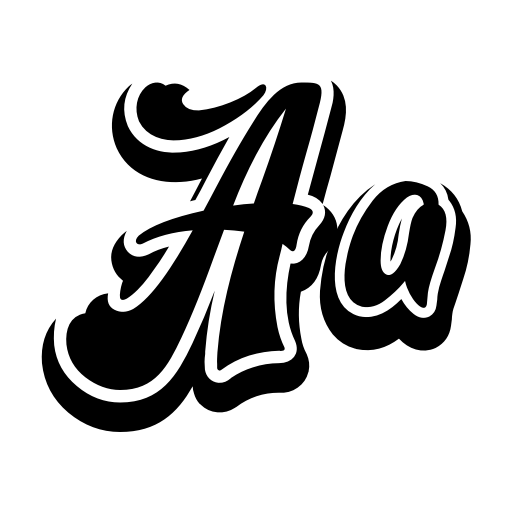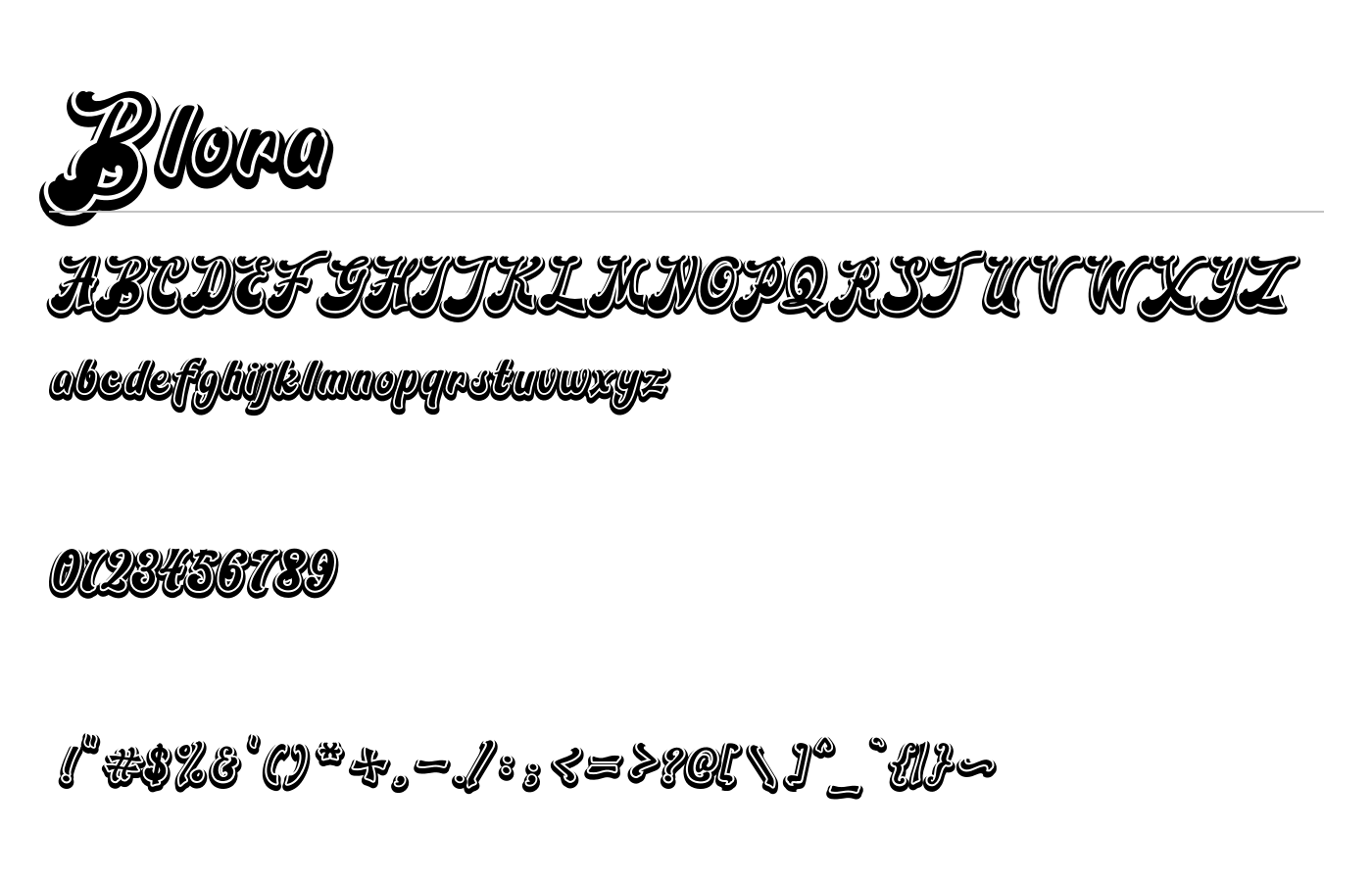
Blora is a bold and playful script font with a thick, shadowed outline that gives it a dynamic, three-dimensional feel. Its rounded, flowing letterforms with high contrast between thick and thin strokes make it perfect for eye-catching headlines, logos, and branding that want to convey a fun, retro vibe. This font works well in creative projects where a lively, energetic personality is desired.
Blora Font
About Blora Font
| Font family | Blora Font |
| Designer | Emanes Design. |